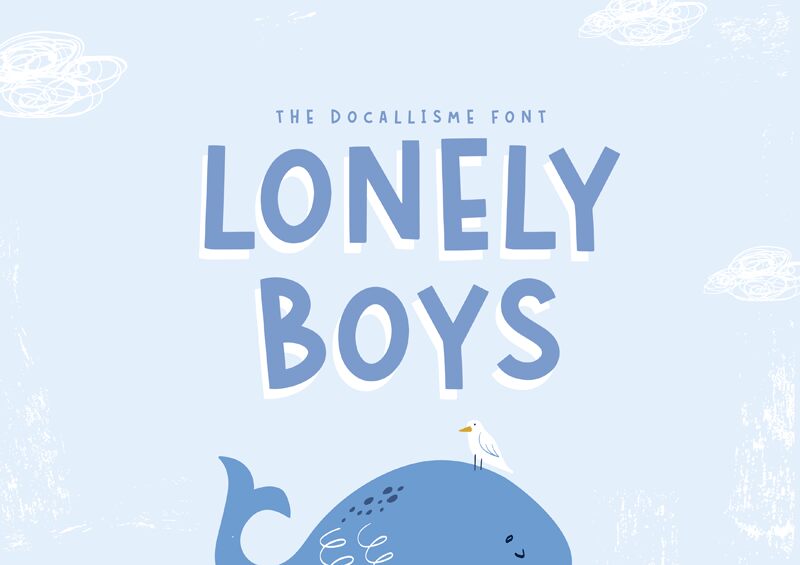
LONELY BOYS 3D
Lonely Boys 3D leaps off the page with its playful, cartoonish charm and engaging three-dimensional twist. Crafted by The Docallisme - Amry Al Mursalaat, this member of the Lonely Boys family exudes fun and creativity. Its bold, block-like characters appear to pop out, adding depth and a sense of movement that captures the imagination.
This font is perfectly suited for projects that call for a touch of whimsy or require a standout headline. Whether it's for eye-catching book titles, lively event posters, or dynamic logos, Lonely Boys 3D is sure to inject personality and visual interest into any design.